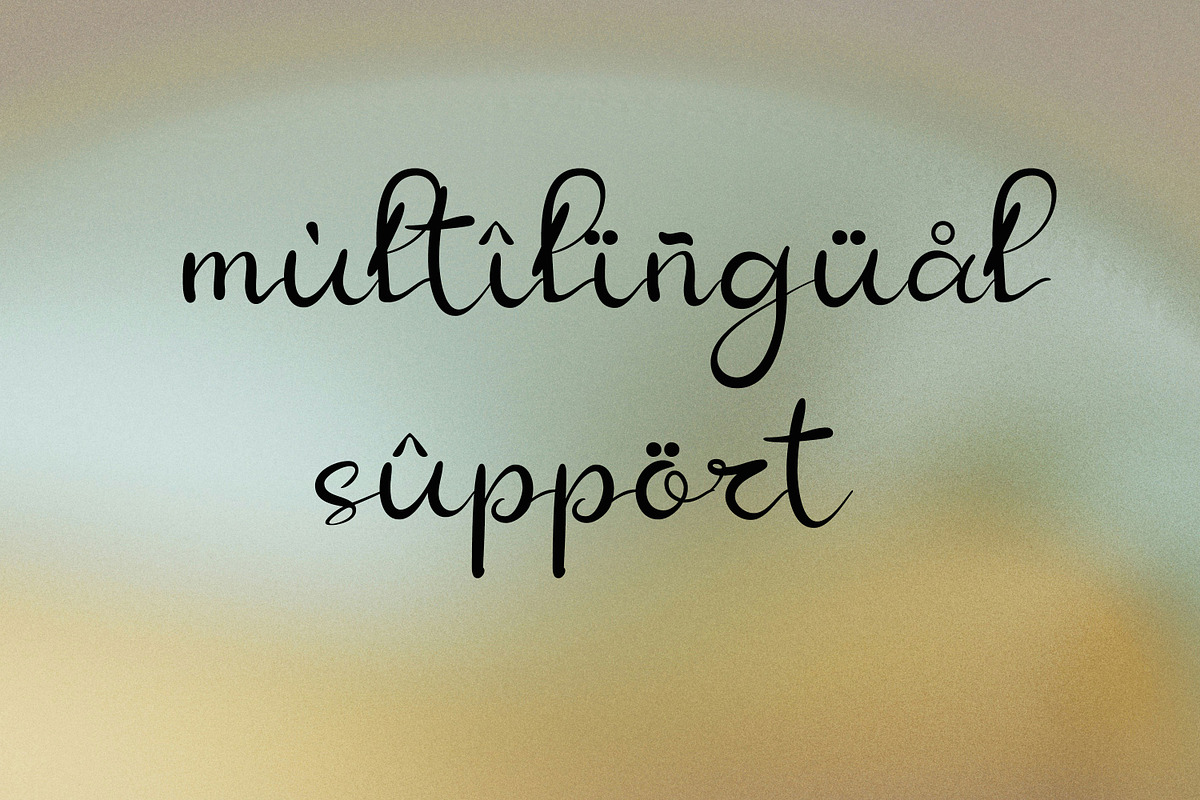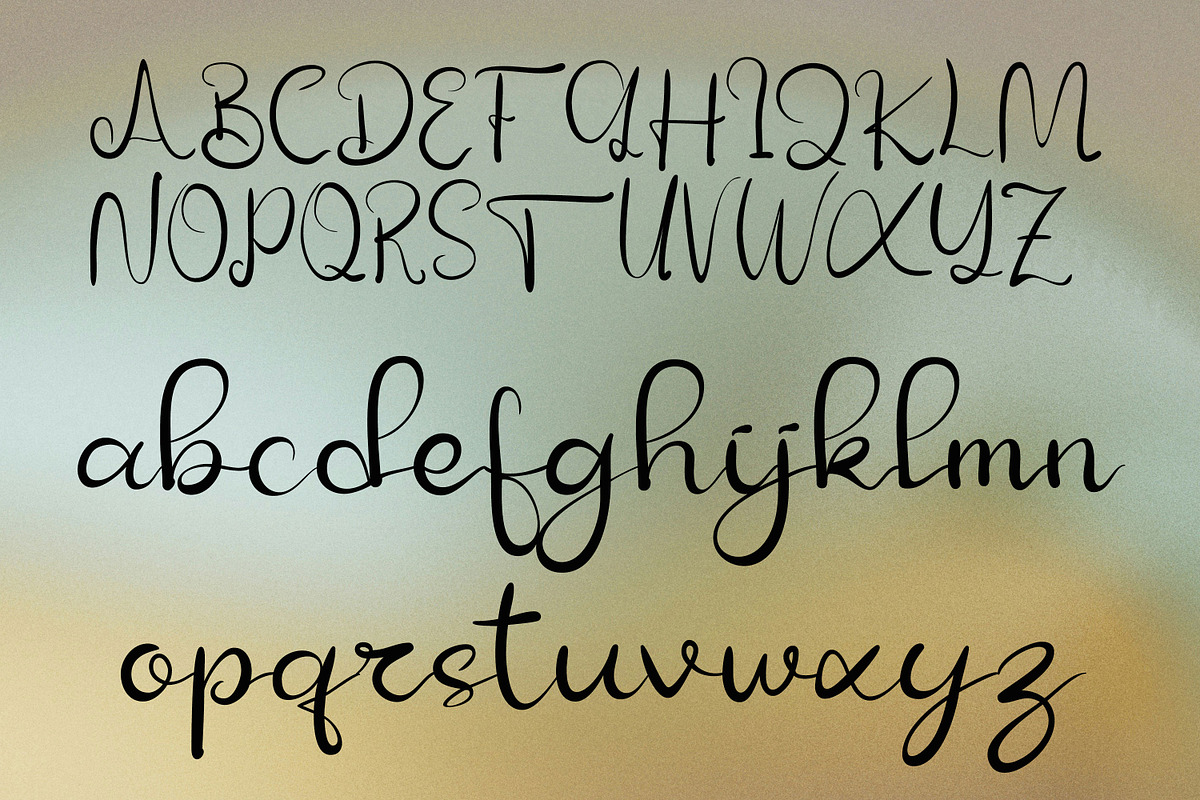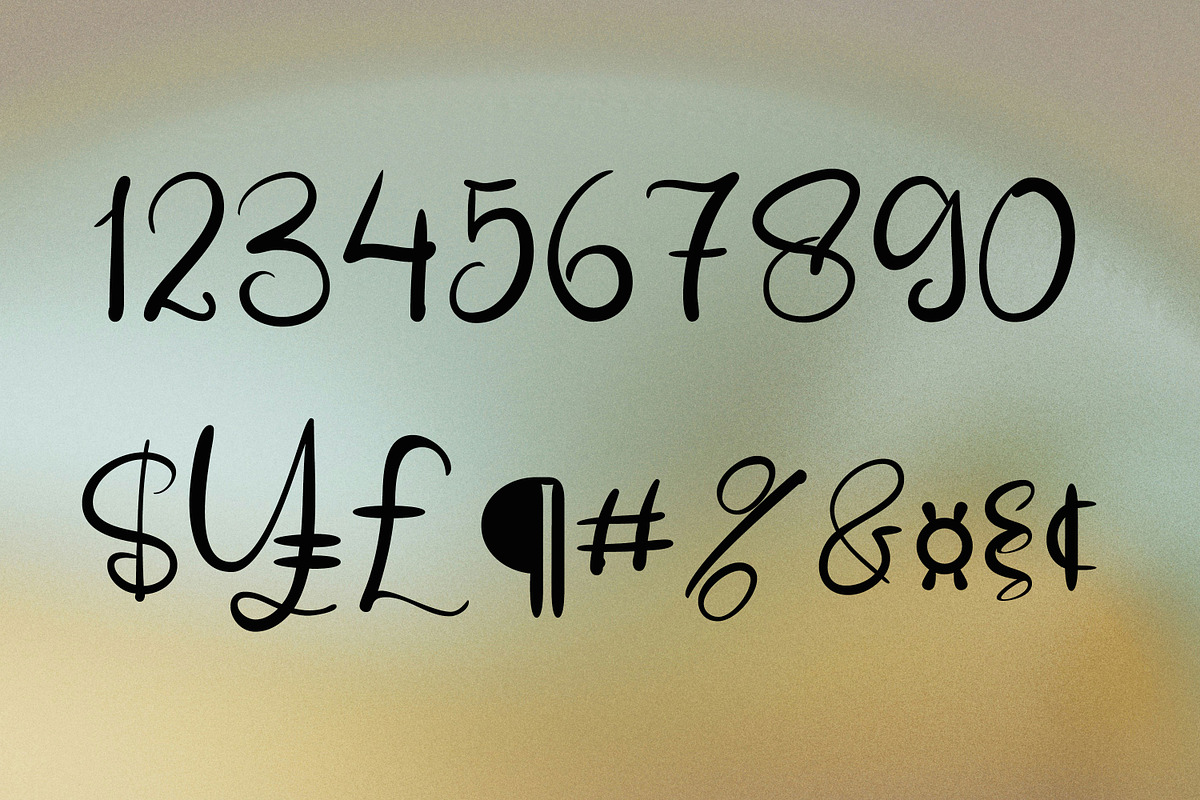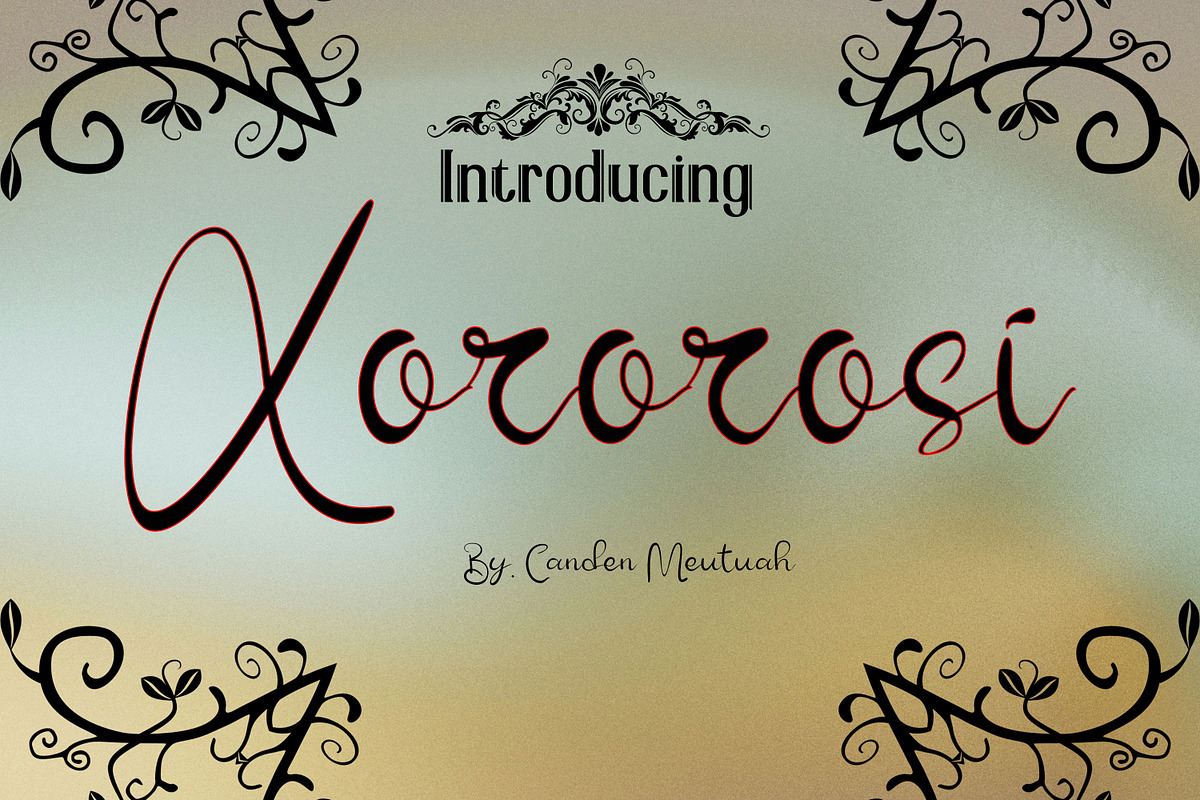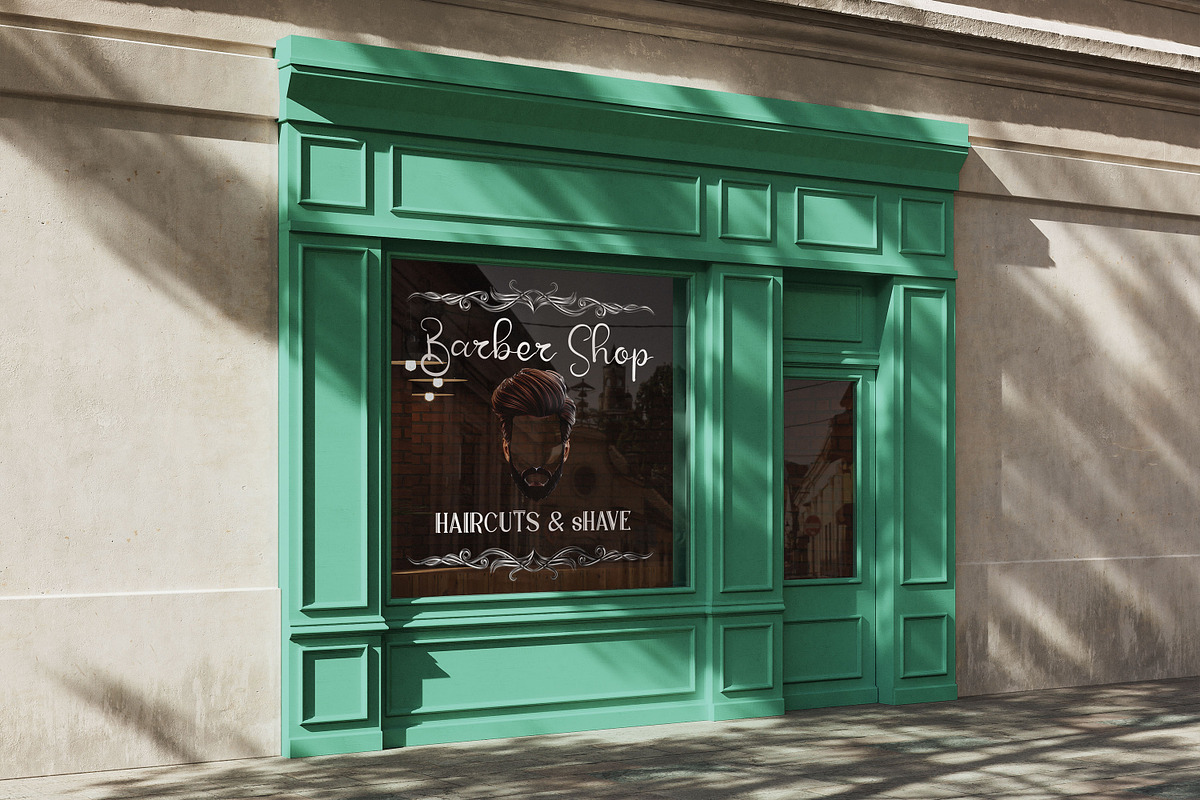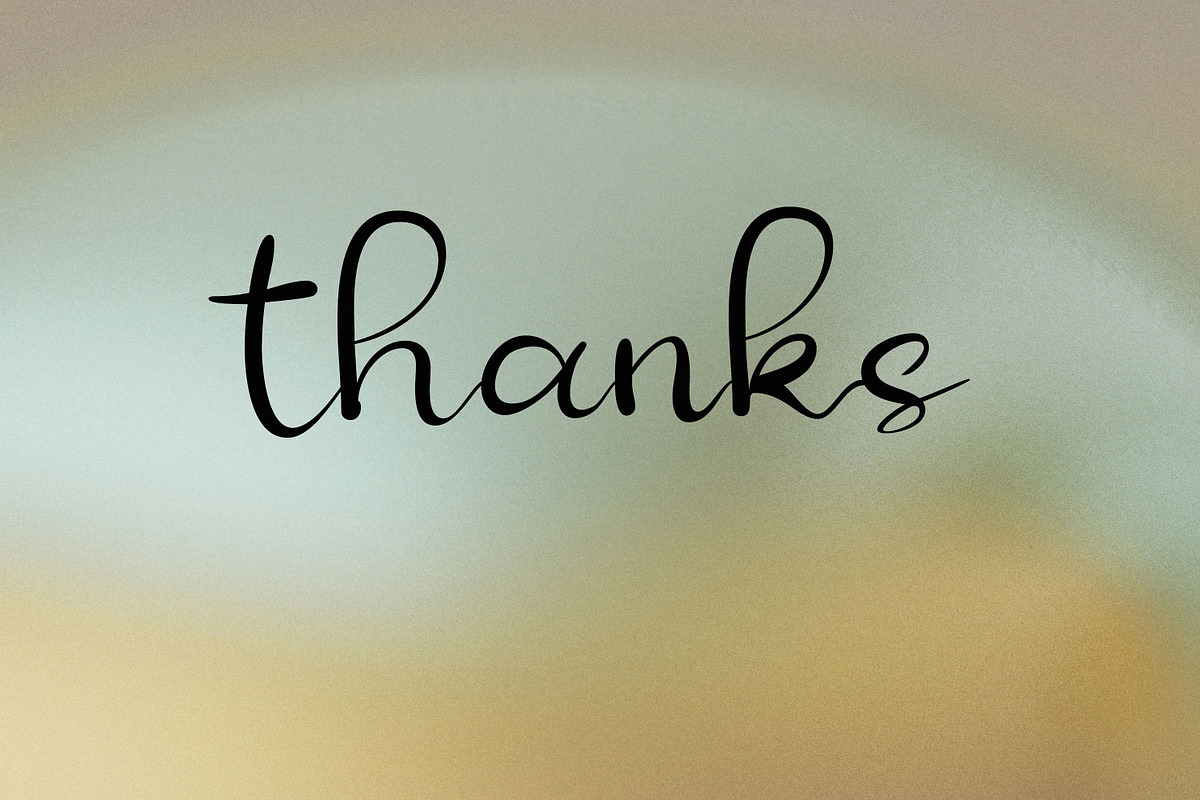
Xororosi
Xororosi is a beautiful and eye-catching font designed with a soft, unique touch. Its distinctive strokes give it a special character, making it meaningful and versatile for future use. With various characters, it’s perfect for design projects, crafts, and other creative works.